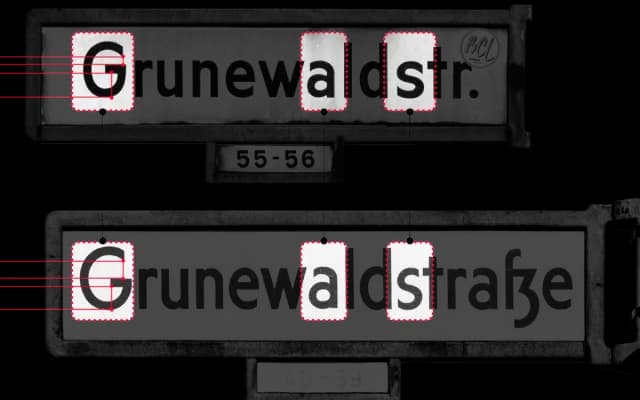
Golt
Gallery Type · Daniel Perraudin, Alexander Roth · 2025
A wide geometric grotesque drawn from Berlin street and metro signage, referencing Herbert Thannhäuser's 1942 letterforms and the historic typefaces of the U8 line.
Designed by Daniel Perraudin and Alexander Roth, Golt takes its proportions and details from Berlin's layered typographic history, including Erbar Grotesk, Thannhäuser's street sign letterforms and Andreas Frohloff's 1990s revision. Characteristic details include sharp vertical stroke terminals, a wide open G modelled on the Gneisenaustraße metro lettering, an angled t crossbar and a straight-descender alternate for the lowercase y. Nine weights from Hairline to Black are available as static fonts and as a variable font, with broad Latin language coverage spanning over 100 languages.
A geometric grotesque rooted in Berlin street and metro signage, drawing from Erbar Grotesk and Thannhäuser's 1942 designs. Wide, rounded proportions with sharply vertical stroke terminals place it firmly in the geometric grotesque tradition.